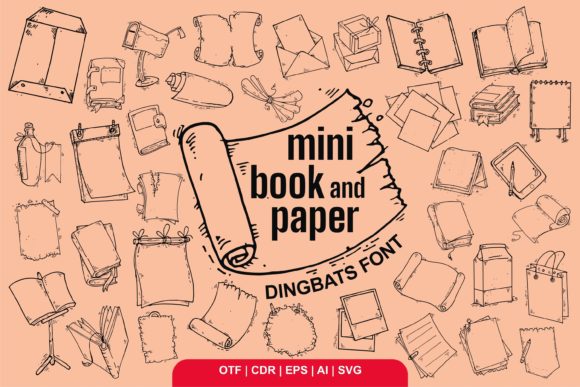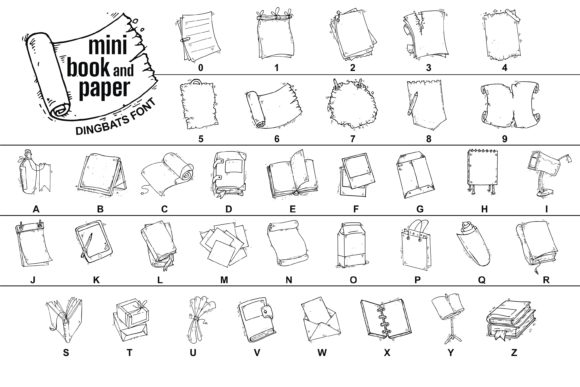
About Mini Book and Paper Font
“Mini Book and Paper” is a fun and useful dingbats font that can add a unique touch to your creative projects. Whether you’re involved in crafting, digital designing, presentations, or making greeting cards, this font can be a perfect addition to your toolkit.
With “Mini Book and Paper,” you have access to a variety of symbols and icons related to books, papers, and stationery. These elements can be used to enhance your designs in numerous ways. For crafting projects, you can incorporate these symbols into scrapbooking, journaling, or card-making to create a playful and whimsical look. In digital designs, you can use them as decorative elements or as visual cues to highlight key information or sections.
Additionally, “Mini Book and Paper” can be useful for presentations. You can utilize the icons to represent different topics, sections, or ideas, making your slides more engaging and visually appealing. Whether you’re delivering a lecture, conducting a workshop, or preparing educational materials, this font can enhance the overall visual impact of your presentation.
Greeting cards are another area where “Mini Book and Paper” can shine. With its book and paper-themed symbols, you can create charming and unique designs for various occasions. Whether it’s a birthday card, thank-you card, or any other type of greeting, incorporating these icons can bring a touch of whimsy and creativity to your cards.
The versatility of “Mini Book and Paper” allows it to adapt to different design styles and aesthetics. It can be incorporated into playful and colorful designs as well as more minimalist or vintage-inspired projects. The font’s unique symbols can serve as decorative elements or even as stand-alone focal points, depending on your creative vision.
In summary, “Mini Book and Paper” is a fun and useful dingbats font that can elevate your crafting, digital designing, presentations, and greeting card-making projects. With its book and paper-themed symbols, it adds a playful and whimsical touch to your designs. Whether you’re aiming for a lighthearted or sophisticated look, this font offers a range of possibilities to enhance your creations and make them stand out.